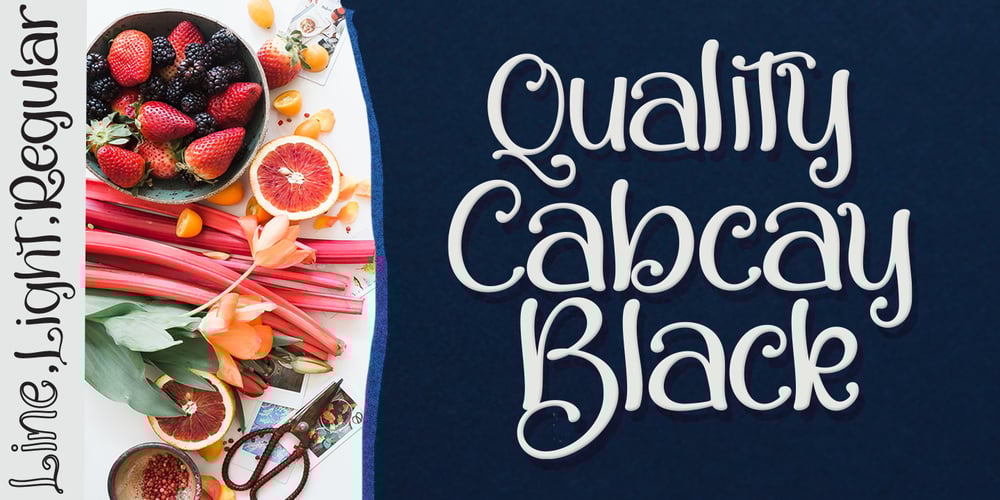
Quality Capcay Black Light Font Family was designed by Nasrullah and published by Sulthan Studio. Quality Capcay Black Light contains 3 styles and family package options. Quality Capcay Black is a handwritten that comes with three fonts. This font is fresh and cute and it will be fun for you when use it.File include- Quality Capcay Black(line). otf/ttf- Quality Capcay Black(light). otf/ttf- Quality Capcay Black. otf/ttf